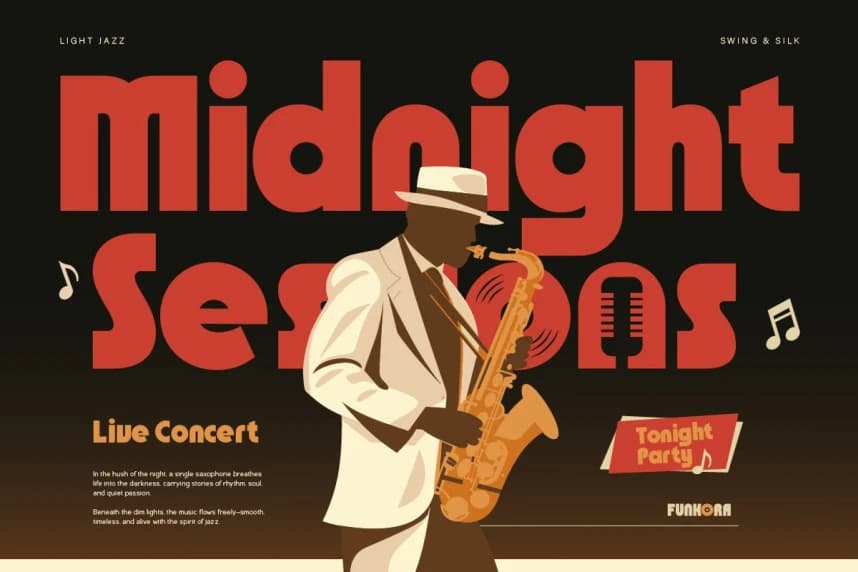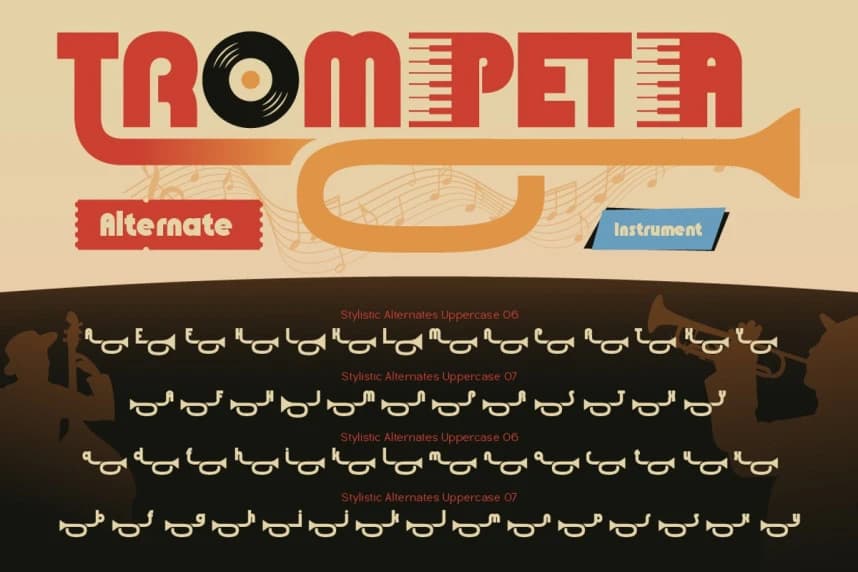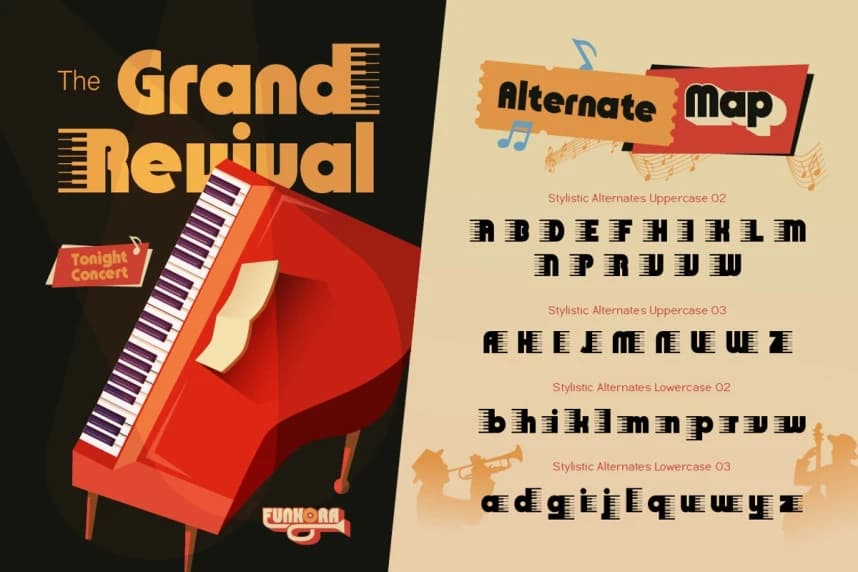
Funkora Font
Funkora Font - There’s something magical about the sound of vinyl spinning, the warm crackle of jazz in the air, and neon lights glowing through the night. Funkora was born from that moment — inspired by retro music culture